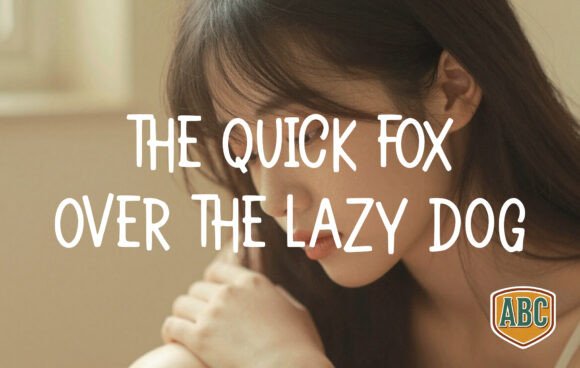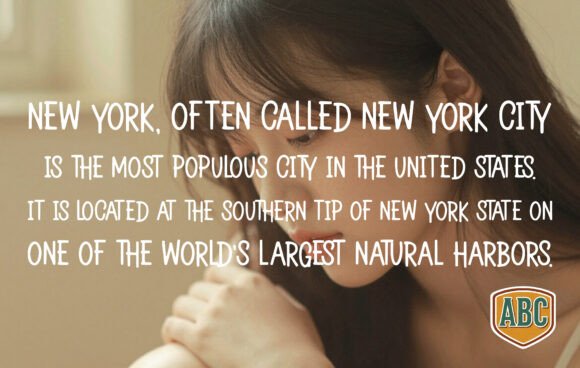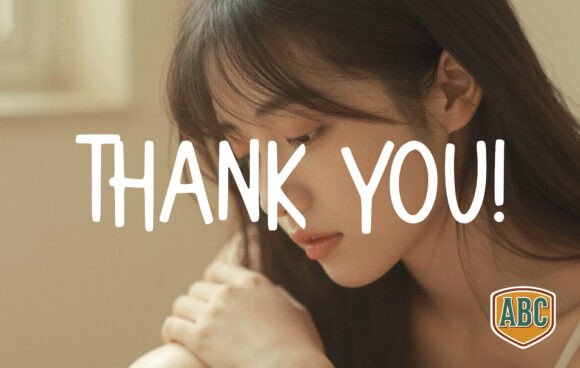
Introducing Brush Font: The Perfect Blend of Friendly and Versatile
Are you looking for a font that can add a touch of casual warmth to your creative projects? Look no further than Brush Font, a highly versatile display font designed to bring a sense of approachability and style to your designs. With its tall, slender proportions and rhythmic verticality, Brush Font is perfect for a wide range of applications, from lifestyle branding to children’s book titles, creative stationery, and social media overlays.
The Characteristics of Brush Font
Brush Font boasts a unique set of characteristics that make it an exceptional choice for designers and crafters. Its tall, slender proportions give it a sense of elegance and sophistication, while its rhythmic verticality adds a touch of playfulness and creativity. The font’s overall design is friendly and approachable, making it perfect for brands that want to feel accessible and stylish.
Perfect for Lifestyle Branding
Lifestyle branding is all about creating a sense of connection and community with your audience. Brush Font is designed to help you achieve this goal, with a professional presence that feels organized yet full of artisanal heart. Whether you’re designing a logo, packaging, or advertising materials, Brush Font is the perfect choice for lifestyle brands that want to feel approachable and stylish.
Great for Children’s Book Titles
Children’s book titles require a font that is both playful and engaging. Brush Font is perfect for this application, with its tall, slender proportions and rhythmic verticality making it an excellent choice for kids’ book titles. The font’s friendly and approachable design ensures that it will appeal to children and parents alike.
Ideal for Creative Stationery
Creative stationery is all about expressing your personality and style. Brush Font is a great choice for stationery designers, with its unique blend of elegance and playfulness making it perfect for a wide range of applications, from greeting cards to journals and planners.
Charming Social Media Overlays
Social media overlays are a great way to add a touch of personality to your online presence. Brush Font is perfect for this application, with its friendly and approachable design making it an excellent choice for social media graphics, quotes, and inspirational messages.
Key Features of Brush Font
- Tall, slender proportions: Give your designs a sense of elegance and sophistication.
- Rhythmic verticality: Adds a touch of playfulness and creativity to your designs.
- Professional presence: Feels organized yet full of artisanal heart, perfect for brands that want to feel accessible and stylish.
- Highly versatile: Suitable for a wide range of applications, from lifestyle branding to children’s book titles and creative stationery.
Why Choose Brush Font?
There are many fonts to choose from, but Brush Font stands out from the crowd. Here are just a few reasons why:
- Unique design: Brush Font has a unique blend of elegance and playfulness that sets it apart from other fonts.
- Highly versatile: Suitable for a wide range of applications, making it a great addition to any designer’s toolkit.
- Easy to read: Despite its playful design, Brush Font is easy to read, making it perfect for body text and headlines.
Brush Font is a highly versatile display font that is perfect for designers and crafters looking to add a touch of casual warmth to their creative projects. With its unique blend of elegance and playfulness, Brush Font is suitable for a wide range of applications, from lifestyle branding to children’s book titles, creative stationery, and social media overlays. Whether you’re looking for a font that is friendly, approachable, and stylish, Brush Font is an excellent choice.